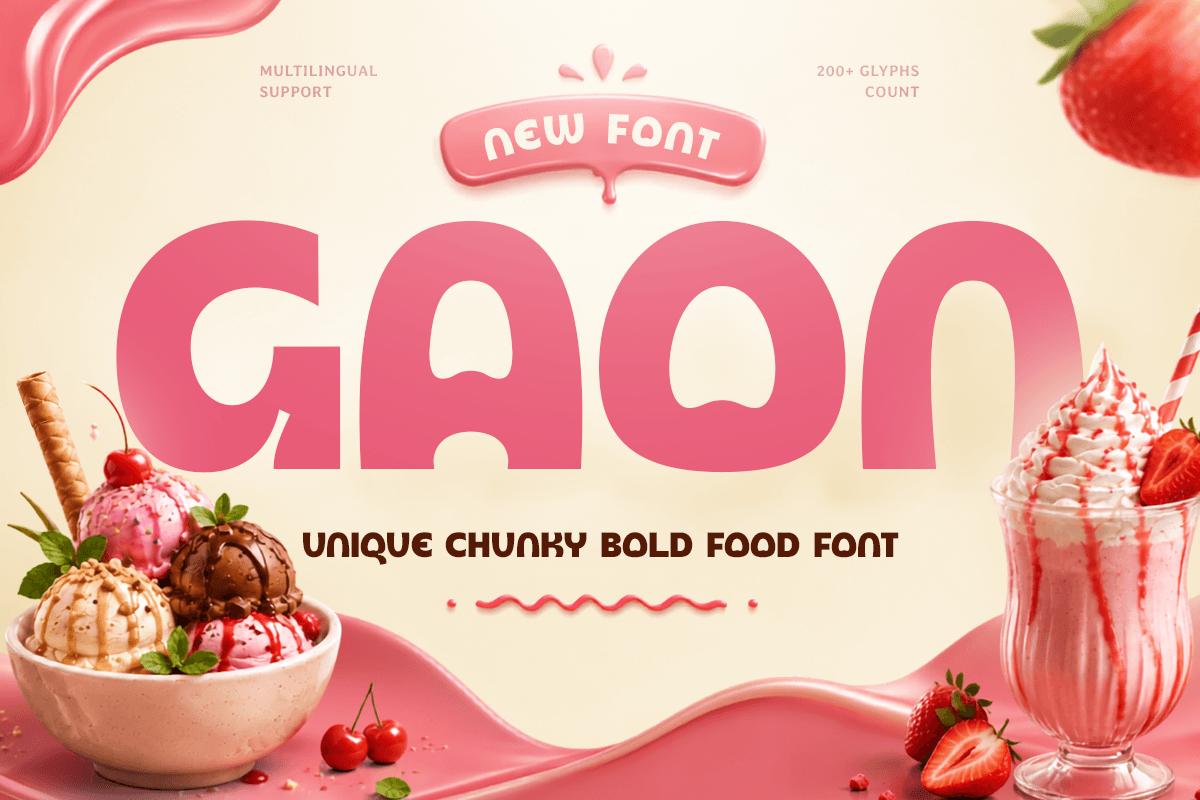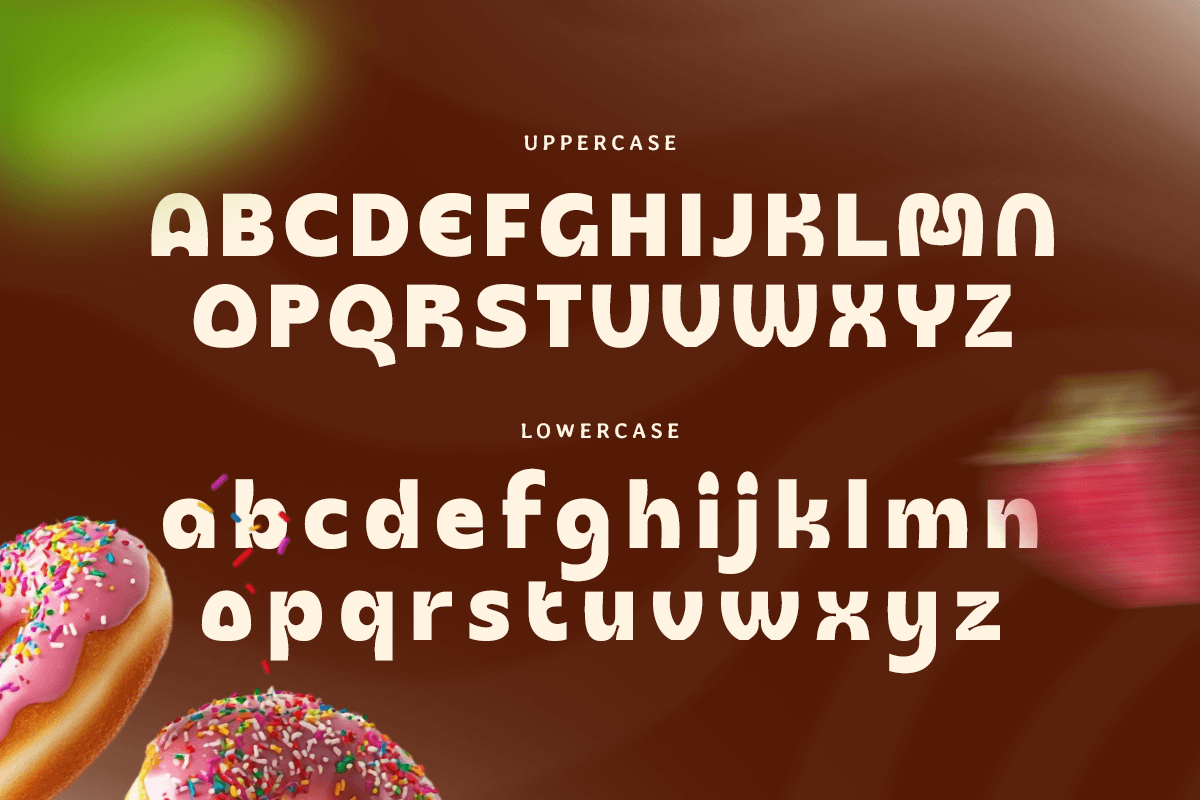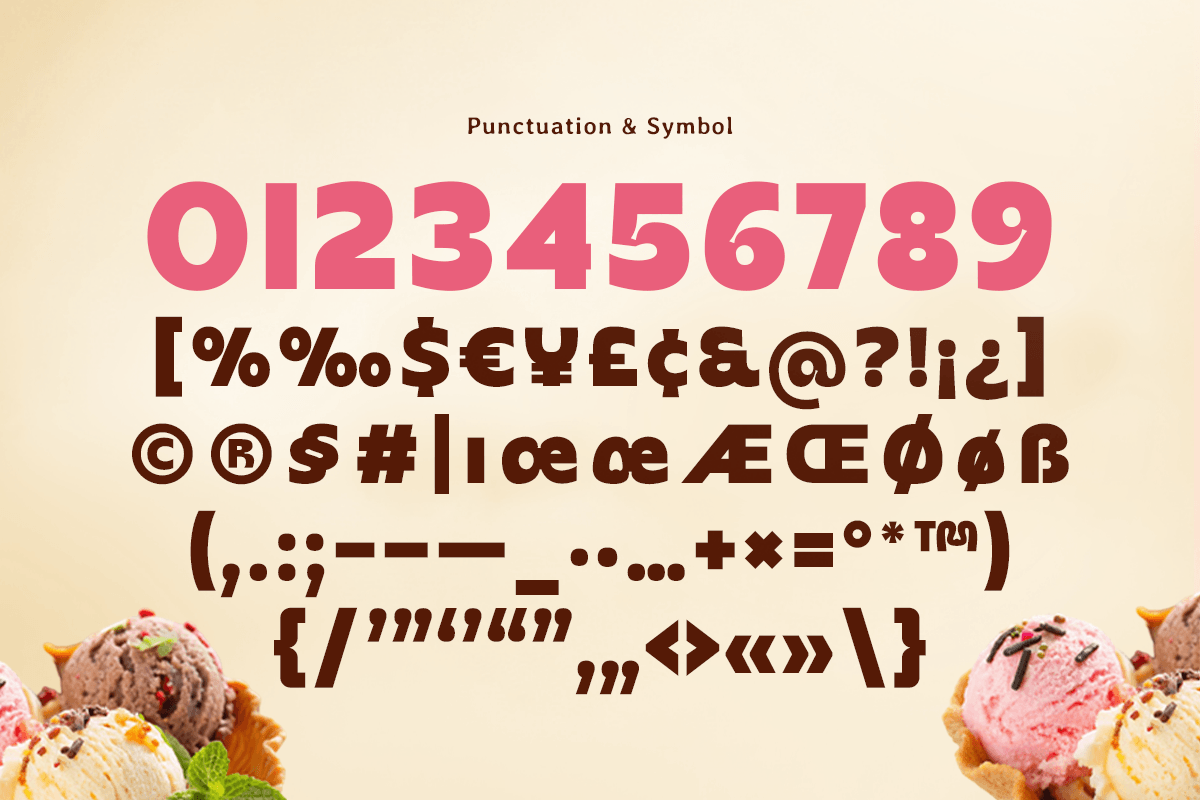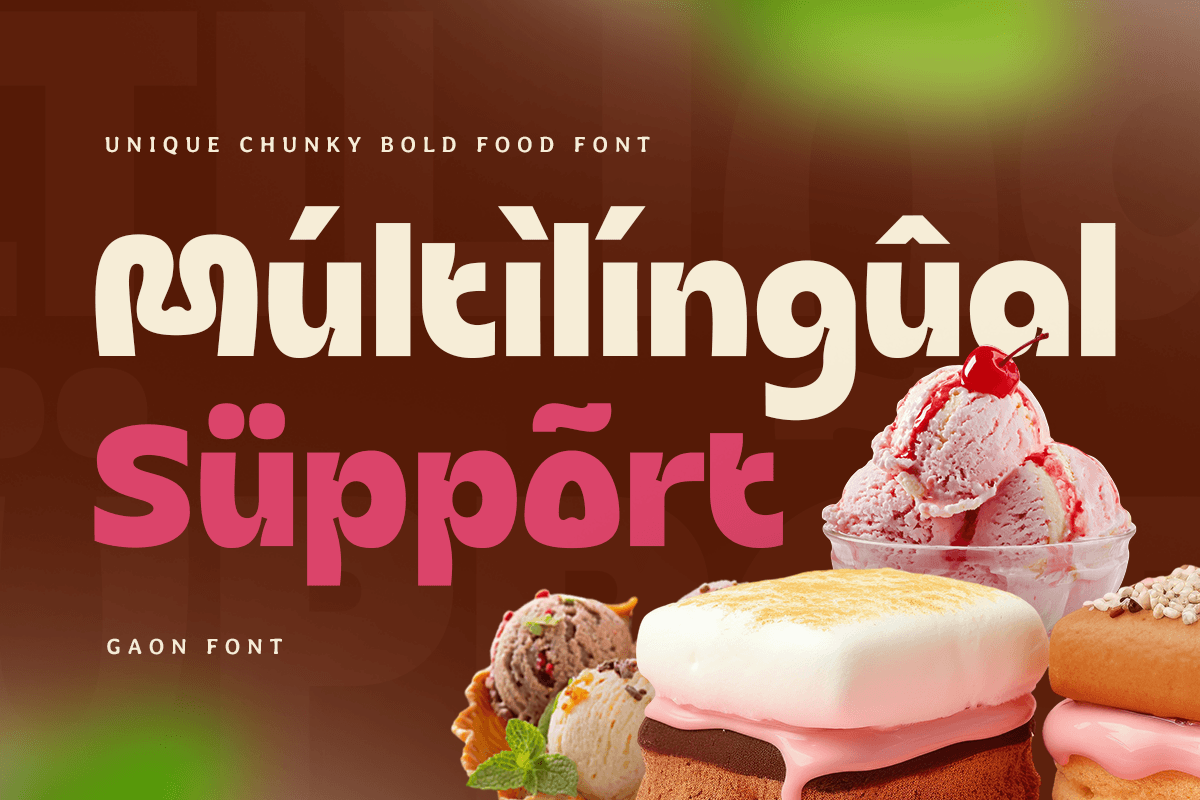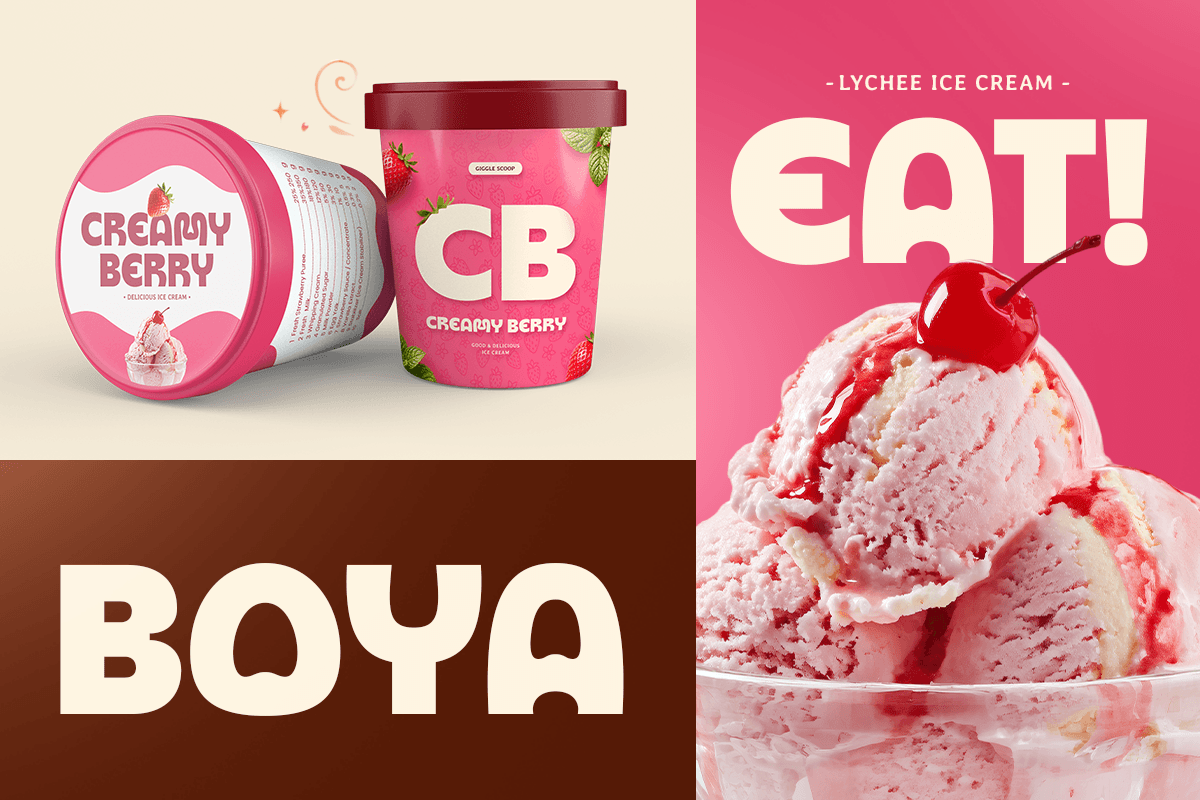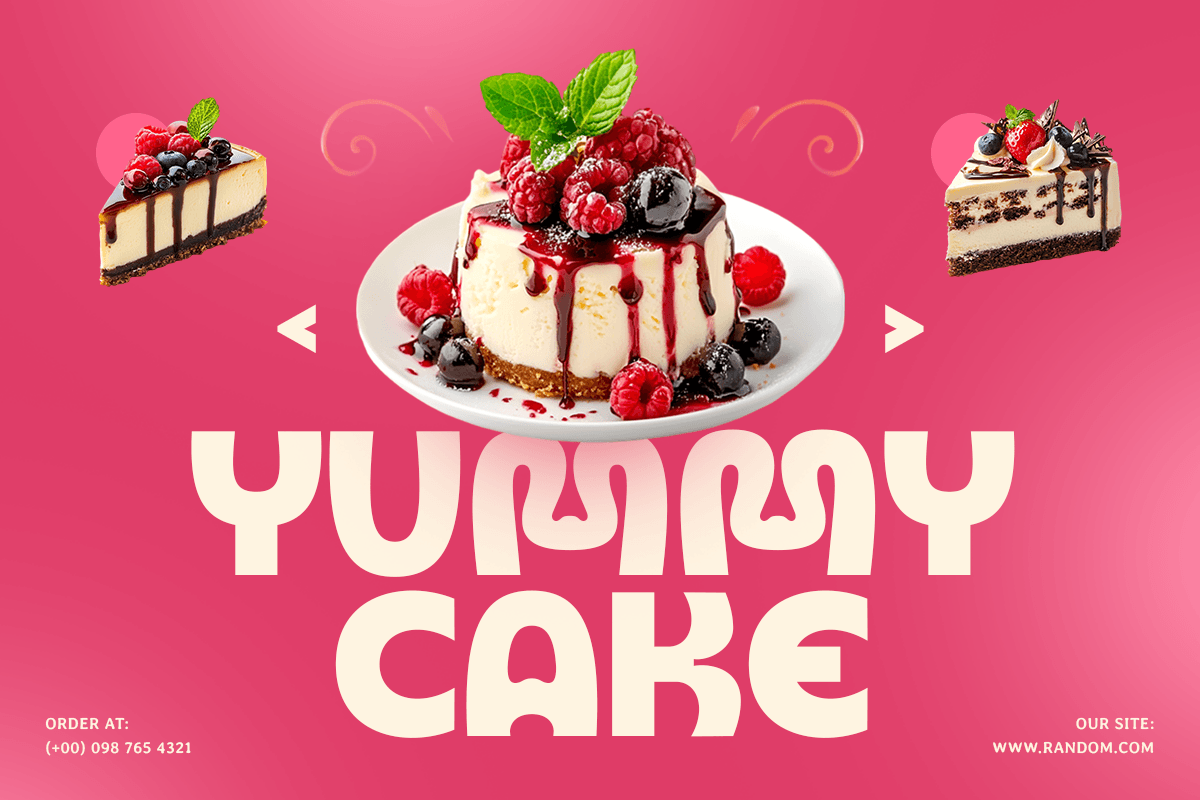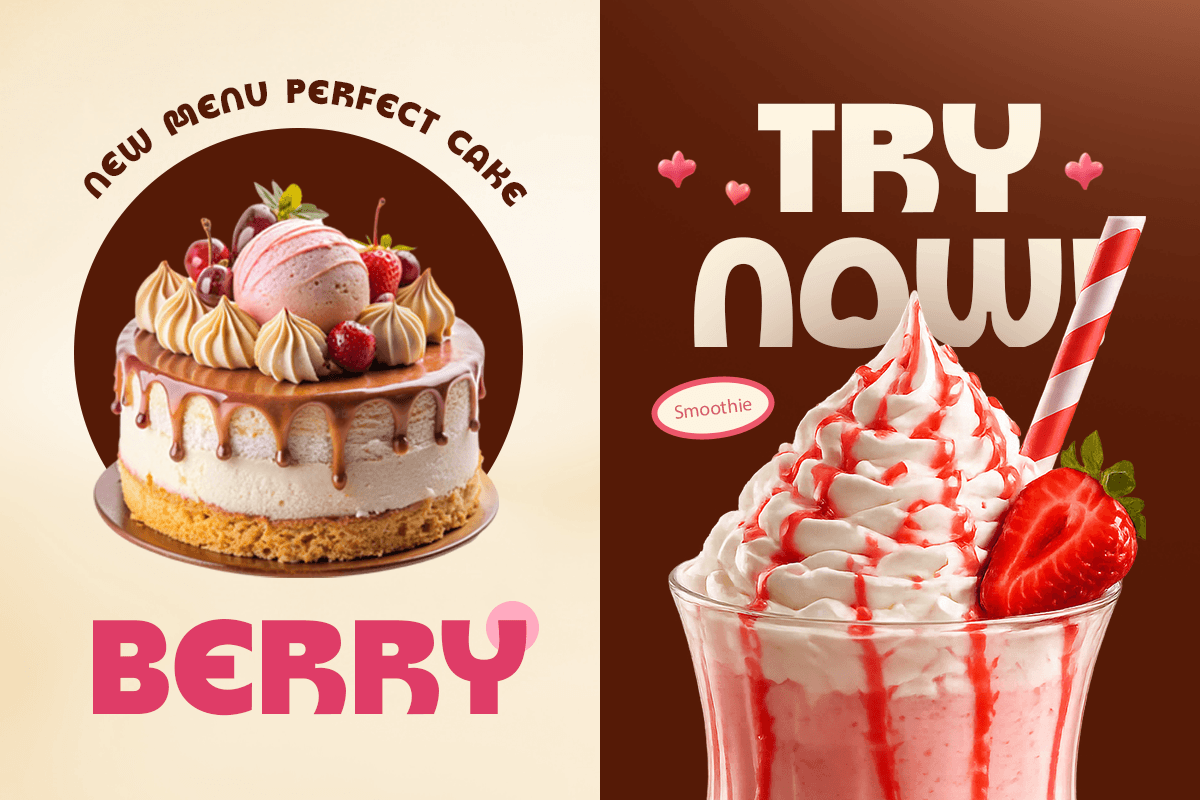
Gaon - Lovely Valentine Food Font
Gaon is a Lovely Valentine Food Font created to bring a sweet, playful, and romantic atmosphere to food and lifestyle designs. Inspired by Valentine's Day themes, charming culinary branding, and modern display typography, Gaon combines lovely letterforms with a warm personality to create an attractive visual identity.
With its unique character, friendly appearance, and delightful style, Gaon is perfect for creating memorable logos, cafe branding, bakery packaging, dessert labels, menus, invitations, and promotional designs.
This font adds a touch of sweetness and emotion to every creative project.
Key Features:
• Uppercase & lowercase characters
• Numbers & symbols included
• Lovely display letterforms with romantic style
• Professional kerning
With its charming look and branding-focused design, Gaon is made for designers who want to create beautiful visuals with a sweet, cozy, and heartfelt character.
Perfect For:
• Logo design
• Food & beverage branding
• Cafe and bakery identity
• Dessert packaging
• Valentine's Day designs
• Menu layouts
• Invitation designs
Ideal for designers seeking a lovely food font with a unique personality, playful appearance, and premium creative appeal.